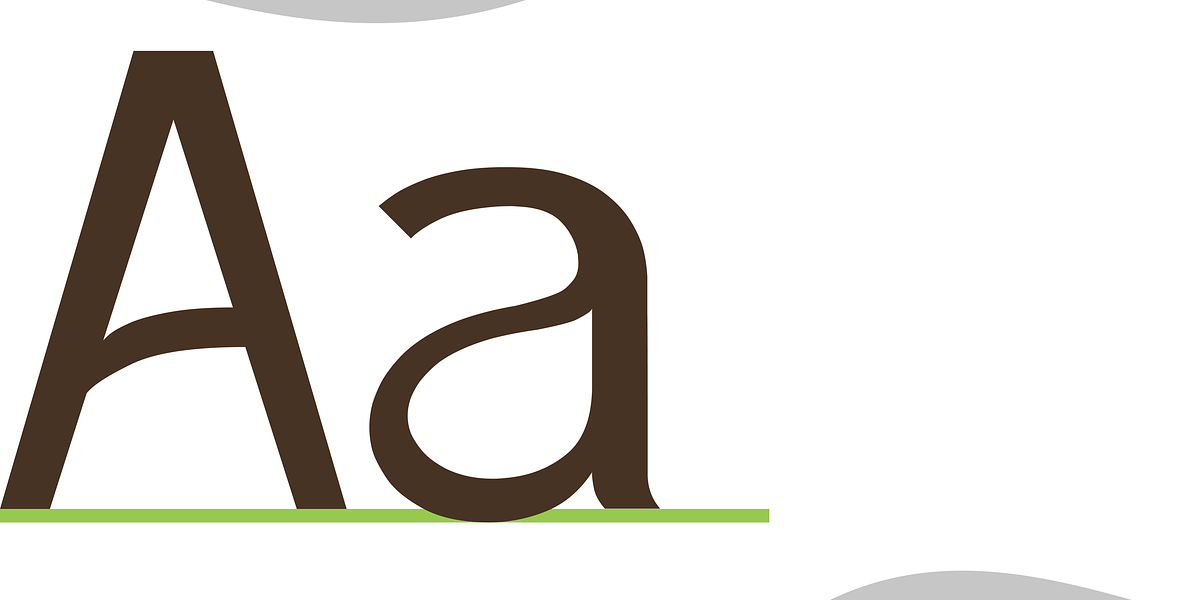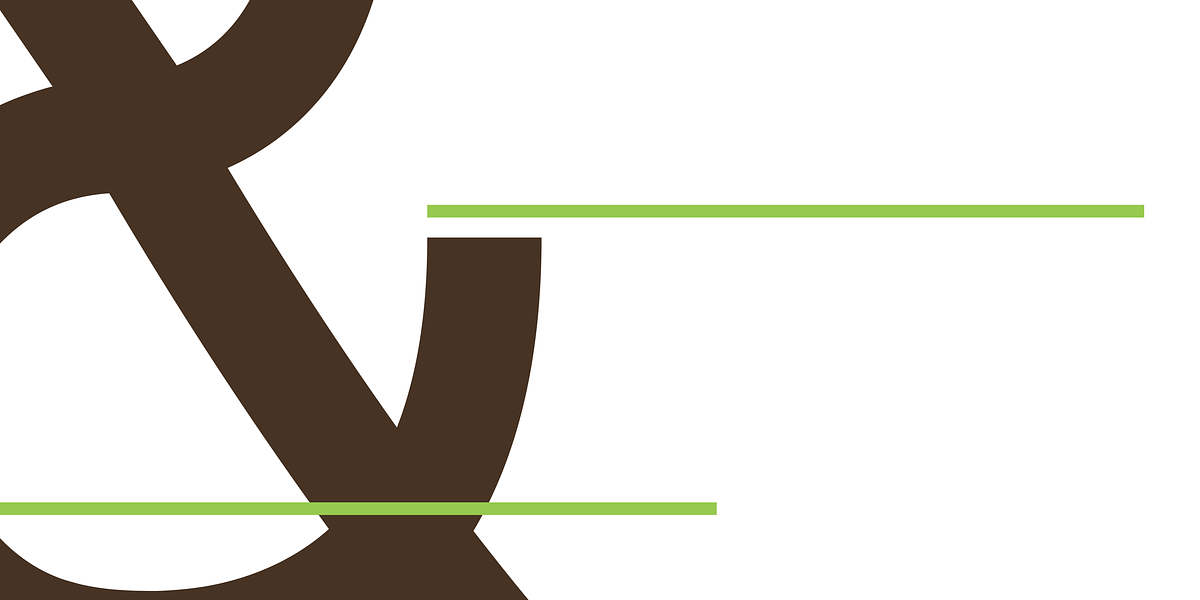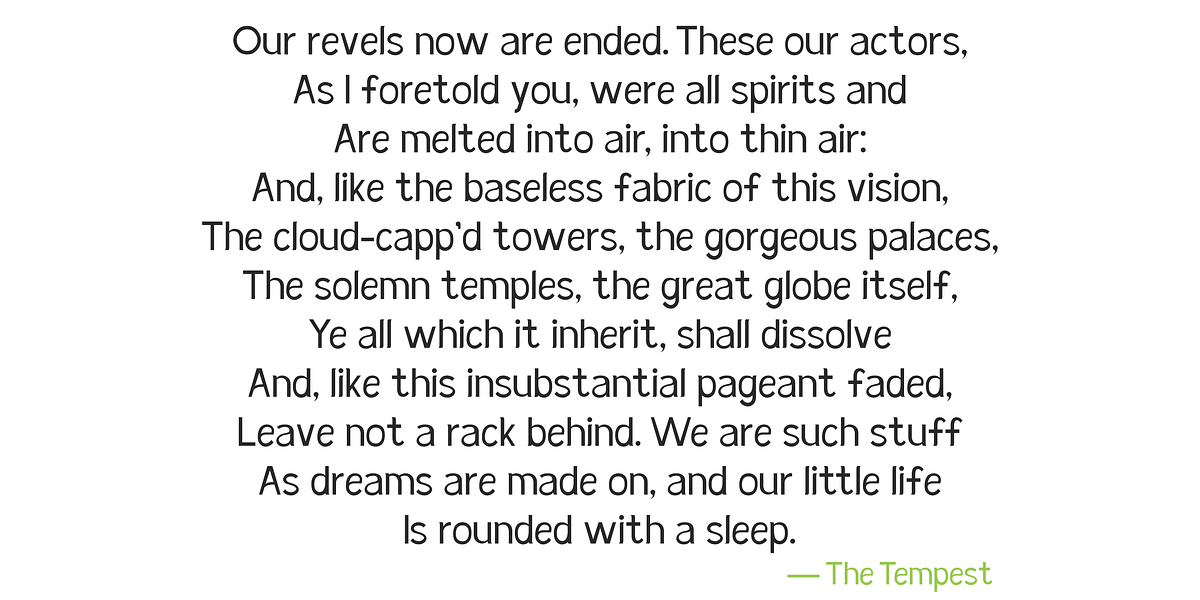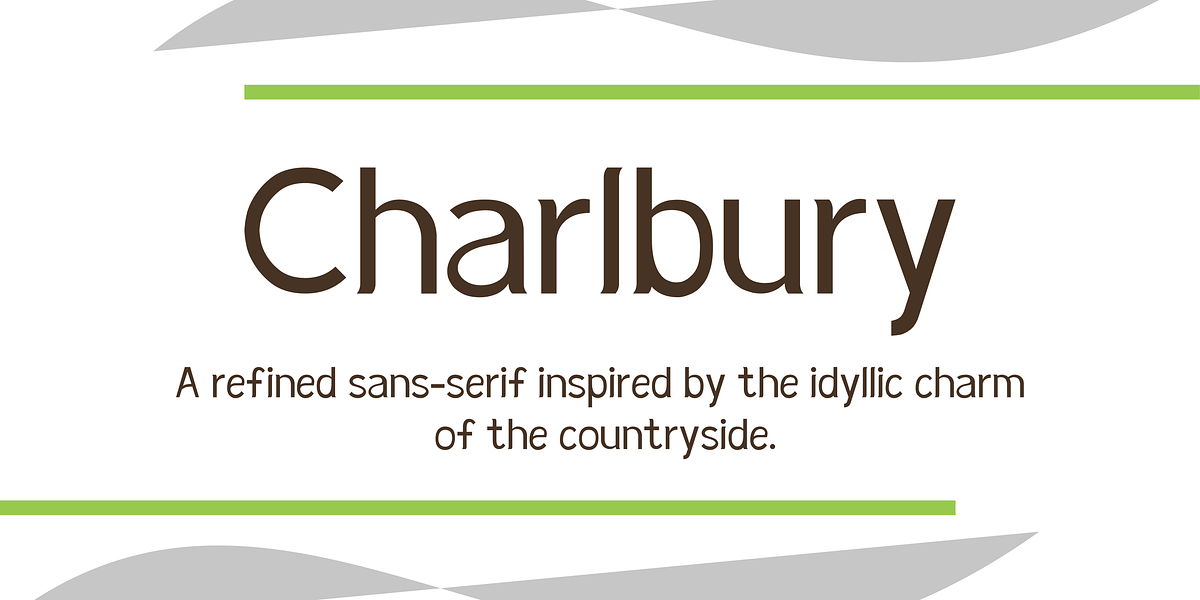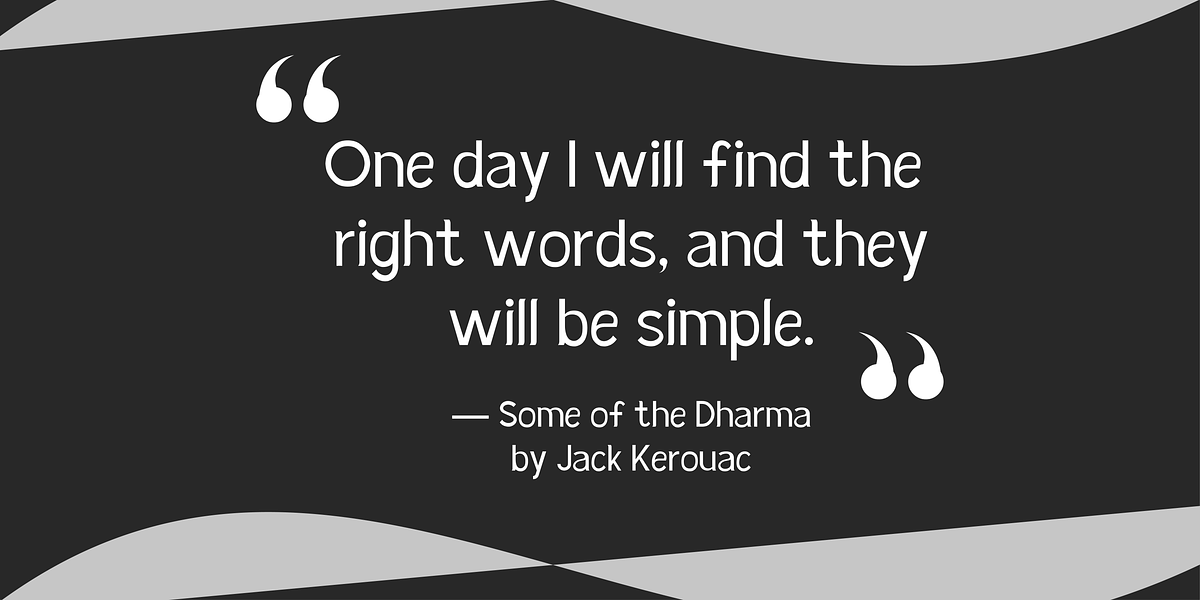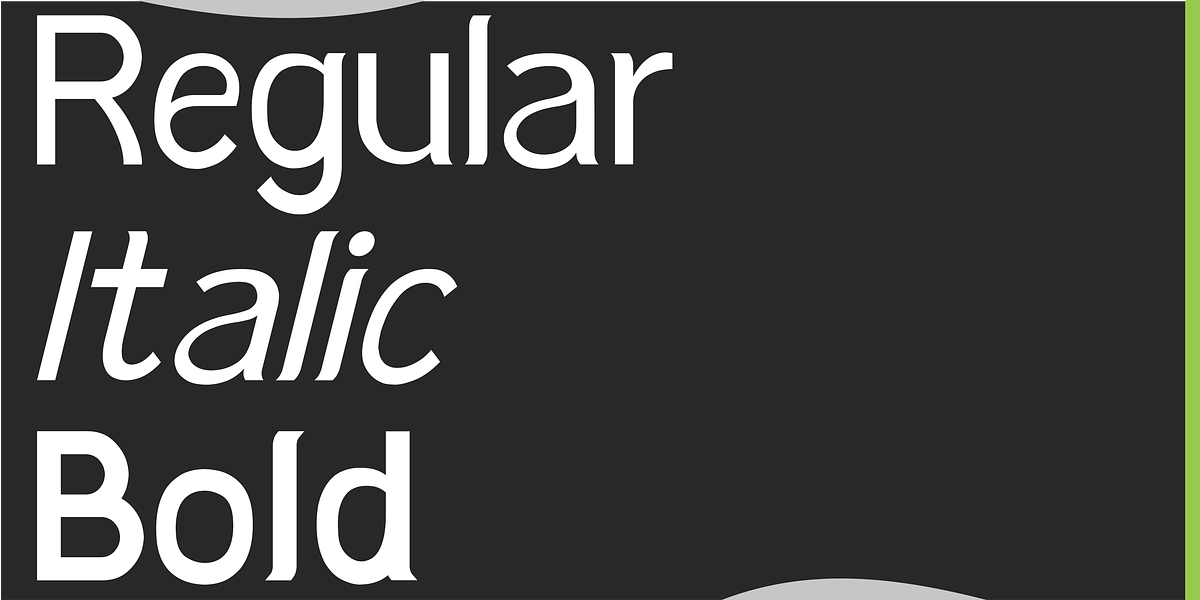
Charlbury
Introducing Charlbury, a refined sans-serif inspired by the idyllic charm of the countryside.
Seamlessly blending contemporary features with timeless elegance. Crafted with clean lines and well-balanced proportions, exuding clarity and readability. The not-so-subtle curves, and sharp edges, reflect the picturesque landscapes of its namesake; A harmonious fusion of modernity and heritage.
Whether used in print or digital media, Charlbury adds a touch of sophistication, making it an excellent choice for those seeking a capable typographic aesthetic.